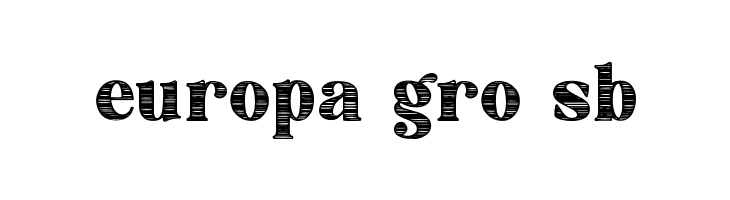
A playful, chalk-like font with a hand-drawn, textured appearance.
A bold, playful font with a chalk-like striped texture and strong serifs.
A bold, textured slab serif font with a chalk-like, hand-drawn appearance.